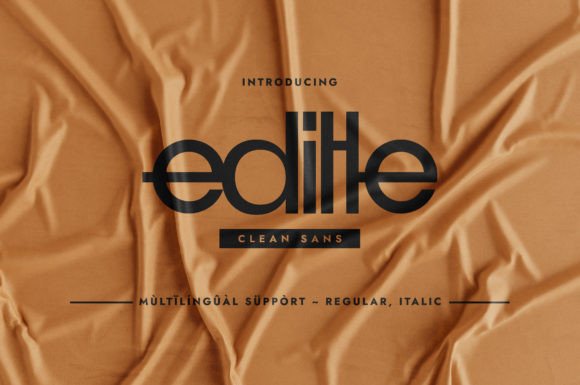
In a world saturated with visual noise, your designs demand a voice that cuts through the clutter and captivates your audience. Meet Editle, the sans serif font that's more than just a typeface—it's an artistic expression, a tool to unleash your creativity and make a bold statement.
Editle's clean lines and compressed structure exude a minimalist elegance, perfect for leaving a lasting impression. Its versatility knows no bounds, making it an ideal choice for logo design, where its ability to grab attention shines. Imagine your brand's identity etched in Editle, standing out from the crowd and leaving an unforgettable mark.
Unlock the potential of packaging design with Editle. Its condensed letterforms and crisp edges lend a sophisticated touch to your products, inviting customers to explore and discover. Create packaging that whispers luxury and invites interaction, transforming your products into objects of desire.
In the realm of large-scale banners, Editle commands attention like no other. Its inherent strength and presence make it perfect for conveying impactful messages that resonate with your audience. Whether it's a captivating billboard or an eye-catching trade show display, Editle ensures your message is seen, heard, and remembered.
But Editle's charm extends beyond the commercial sphere. It's a font that thrives in any context that demands a minimalistic touch, a touch that speaks volumes without saying a word. Its simplicity and elegance blend seamlessly with wedding invitations, adding a timeless charm to life's most special moments.